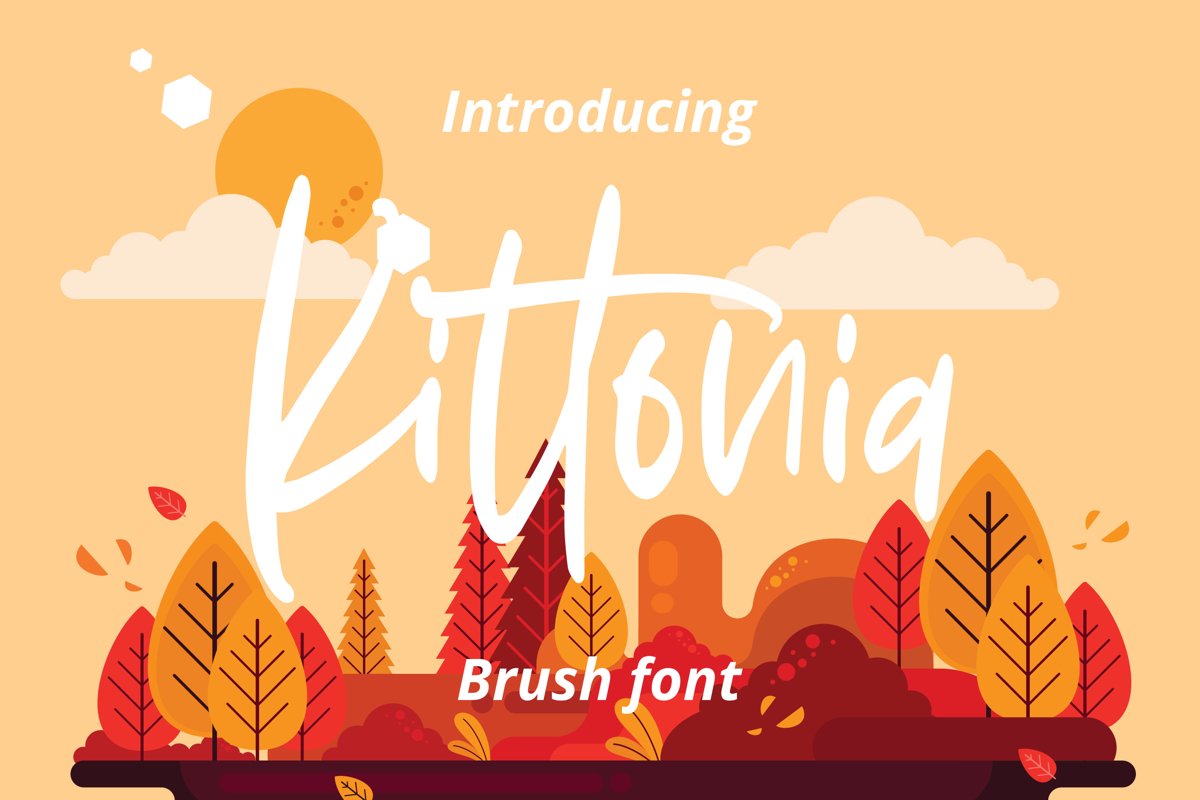
Kittonia - Script Font that contain lowercase, uppercase, symbol, and also support multi language. There’s a lot ligatures in this font. This Font also comes with ligatures, alternates and many more. this font suitable for fashion, branding, catalog and other design what you want.
Kittonia